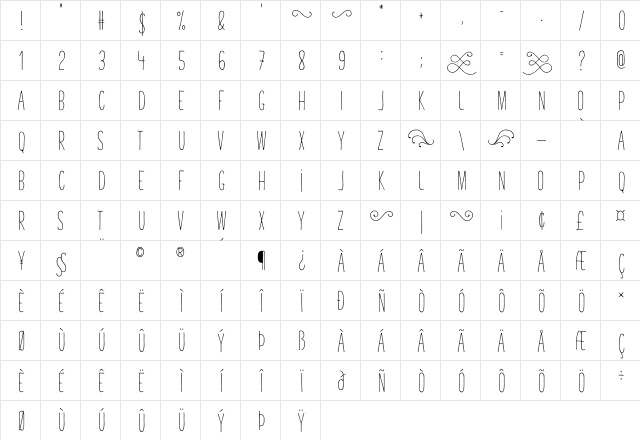
Tasty Birds Sans
| Style | Sans |
| Foundry | Youssef Habchi |
| Designer | Youssef Habchi |
Design Context for Tasty Birds Typeface
Tasty Birds is a composed and adaptable typeface that performs quietly and consistently across a wide range of design contexts.